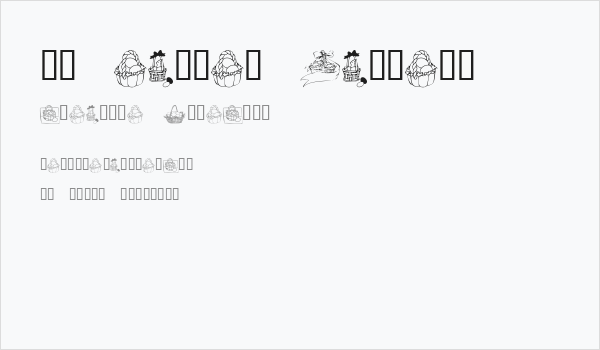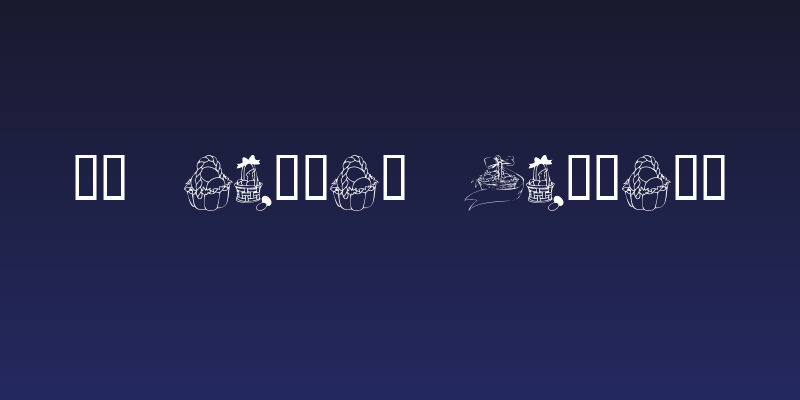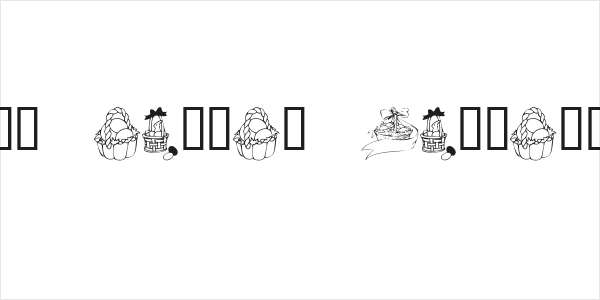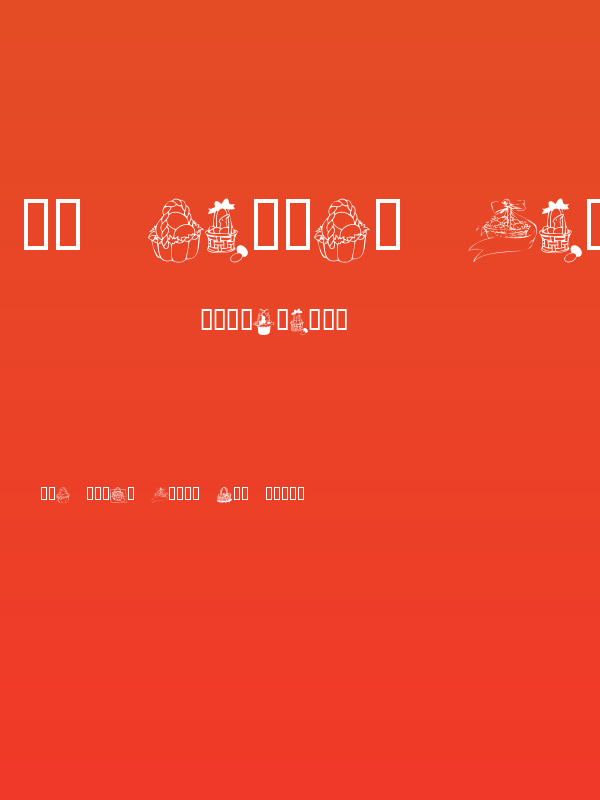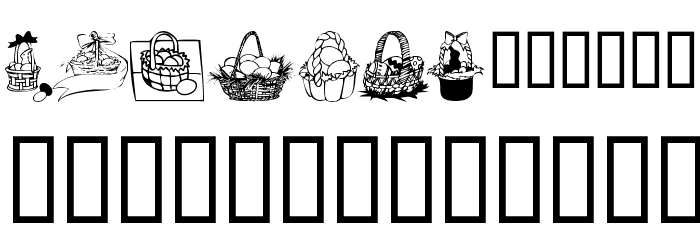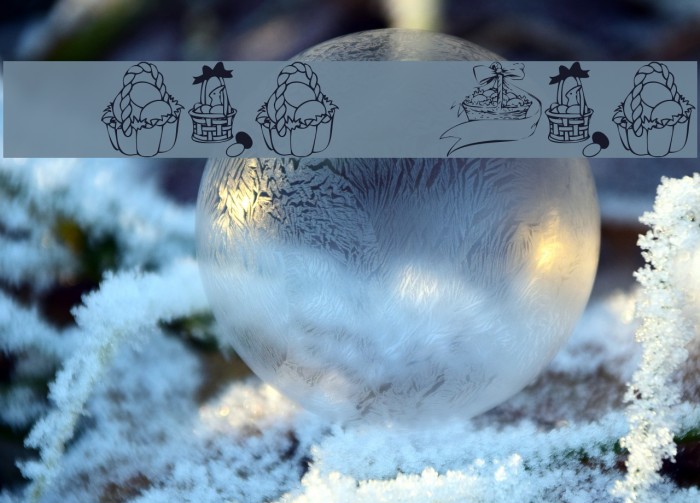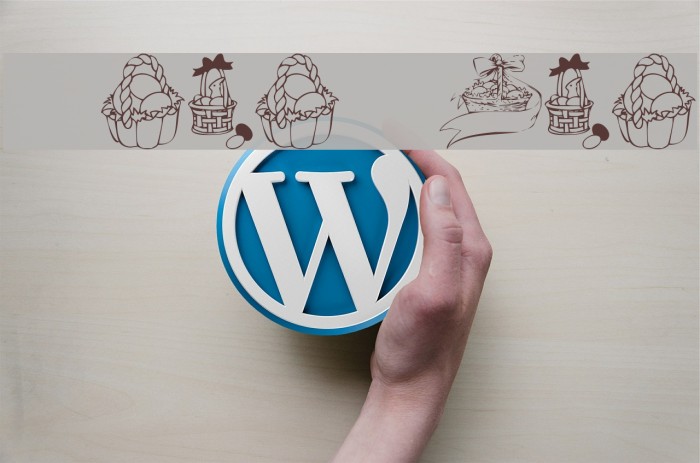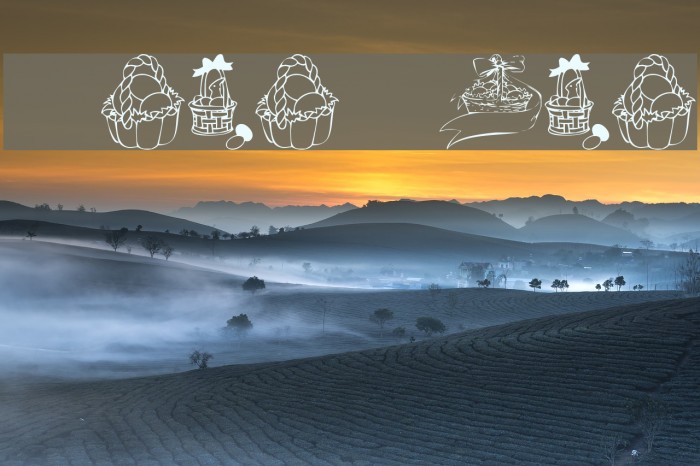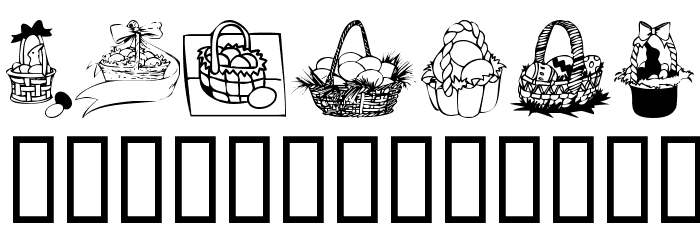
KR Easter Baskets Font
KR Easter Baskets Description
This is not a valid font. The image contains decorative Easter basket illustrations instead of alphanumeric characters or typical font glyphs. Each basket is uniquely designed, featuring various elements such as bows, eggs, and flowers, making it more suitable for decorative purposes rather than textual representation.
| Use Case | Decorative elements |
| Proposed Projects | These illustrations could be used for Easter-themed designs, greeting cards, or decorative elements in holiday projects. |